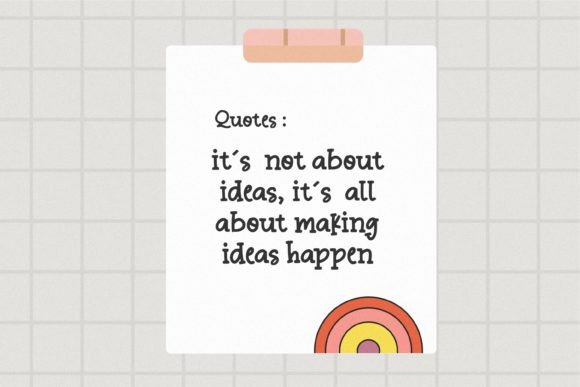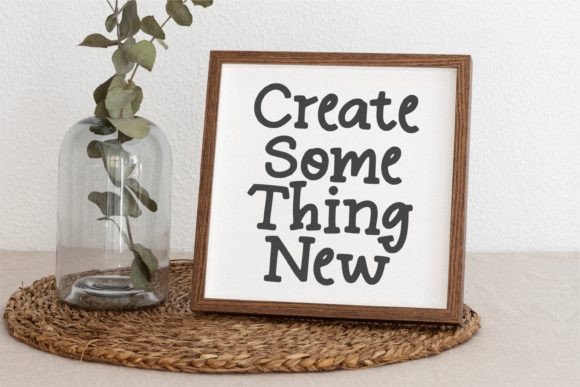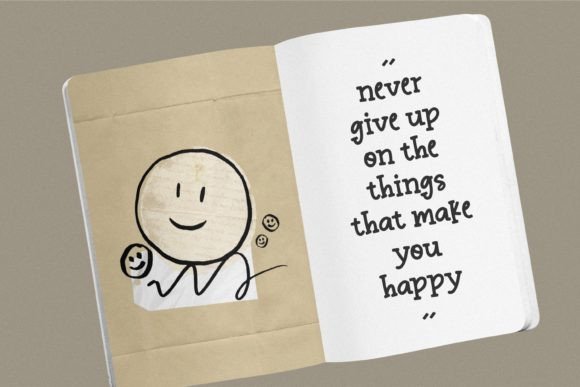
Introduction to Creative Wonder Font
Perfect for creating notes, memos, journal entries, or beautiful quote designs, Creative Wonder font elevates your messages with a sense of authenticity and warmth.
It transforms your ordinary words into a beautiful composition, breathing life into your writing .
Key Features of Creative Wonder Font
Why Choose Creative Wonder Font?
Creative Wonder Font offers exceptional quality and versatility, making it a valuable addition to your design toolkit. Whether you’re creating for personal projects or commercial use, Creative Wonder Font delivers professional results.